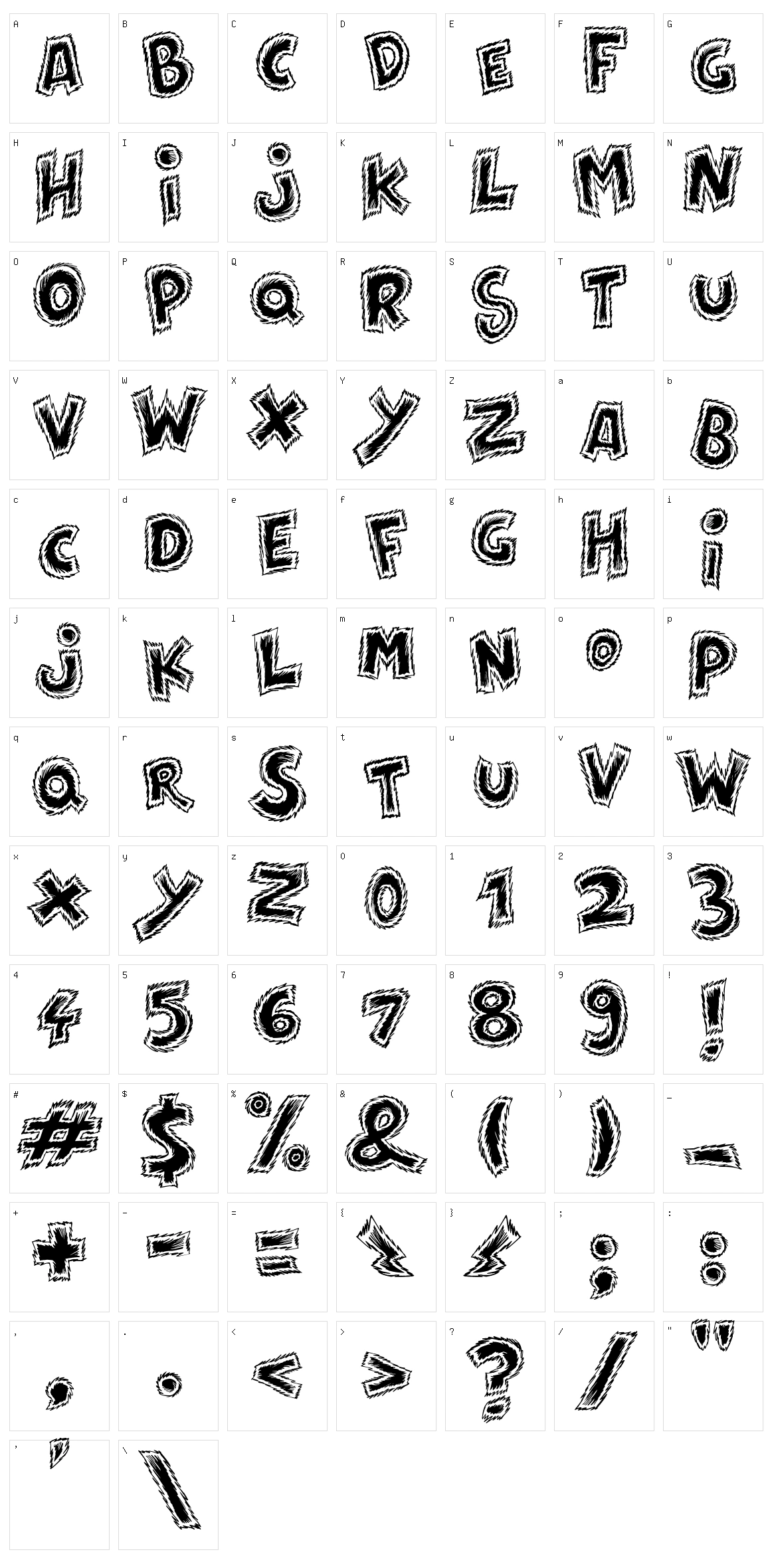
The free font Destroy is carefully designed by imagex, showcasing a thoughtful balance of creativity and usability and falls under the Cartoon font style. When you download the ZIP file, it contains only 179.6 KB of font files, making it lightweight and quick to download. Please review the license details below to understand permitted usage and distribution rights. If license information is not available, we recommend using this font for personal projects only or contacting the author directly for commercial usage permissions.